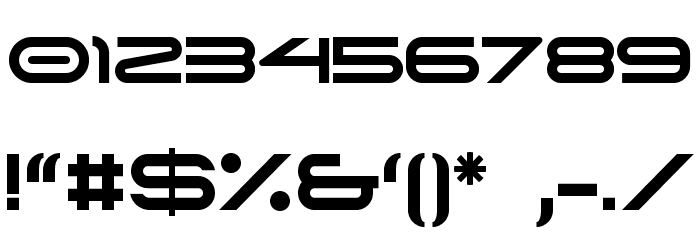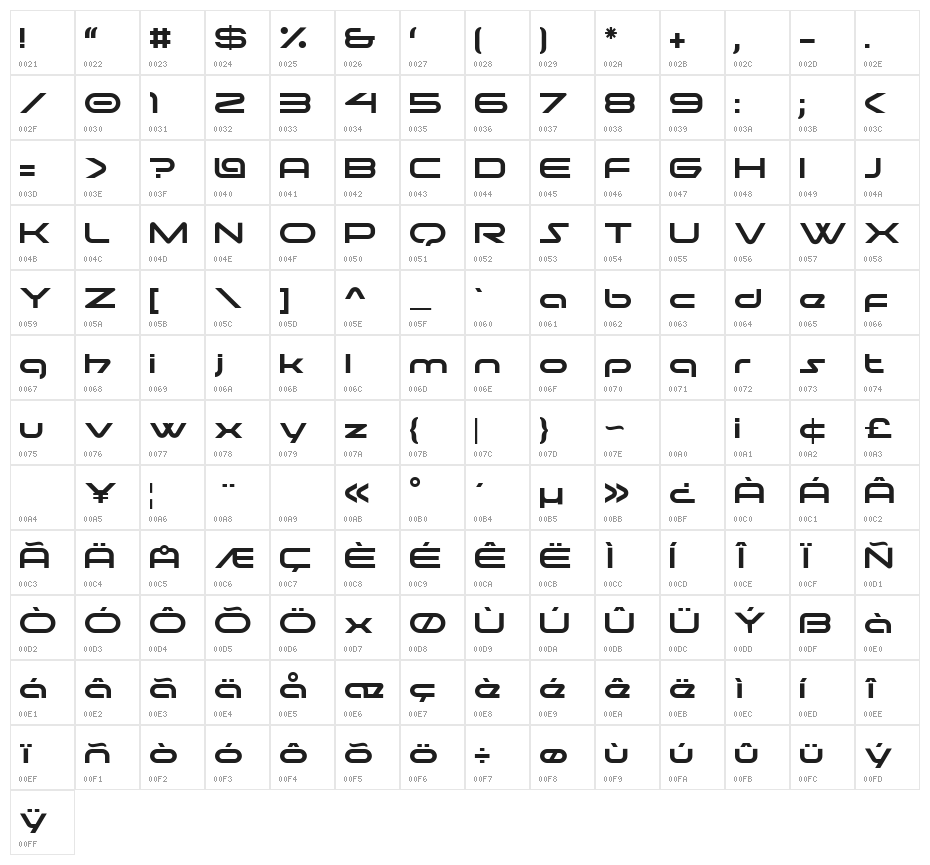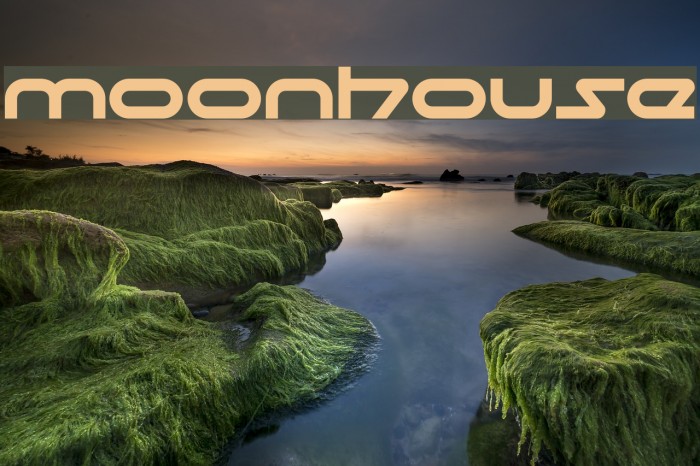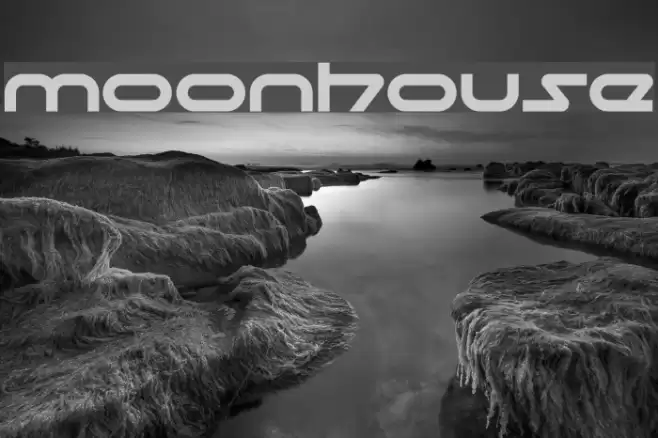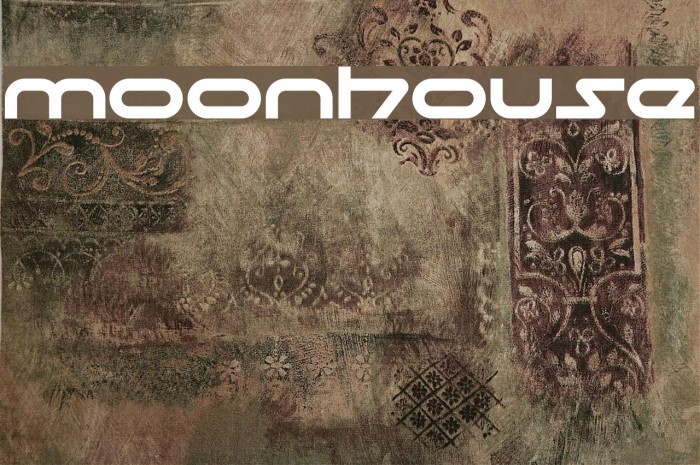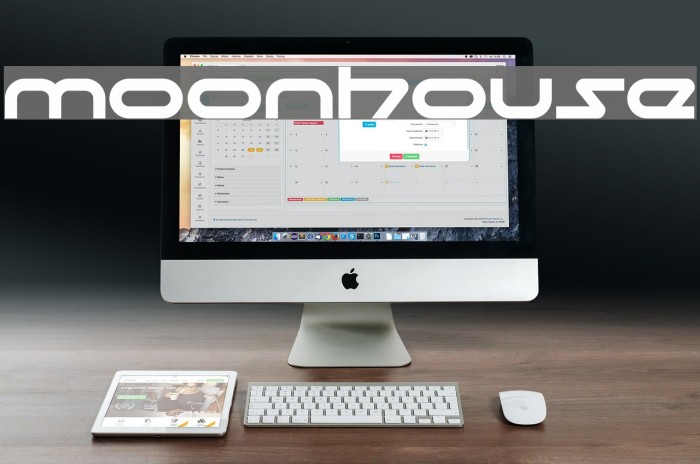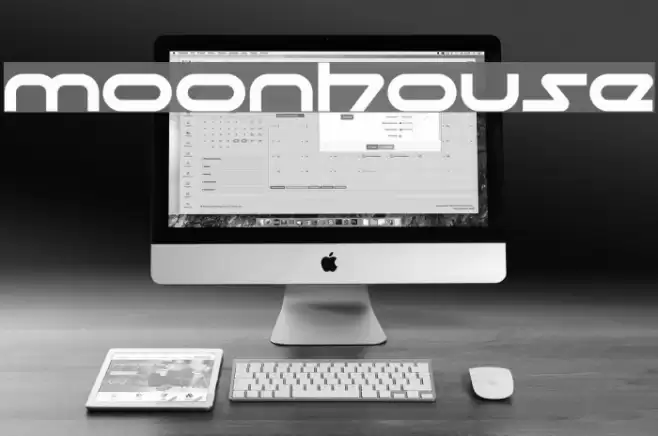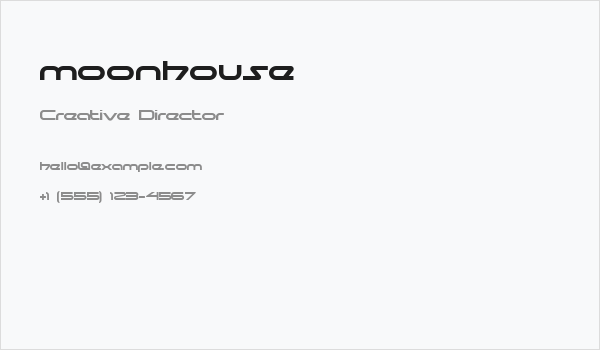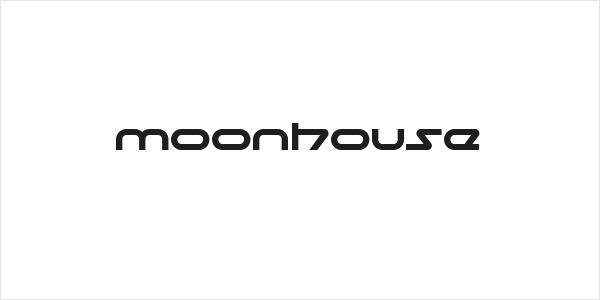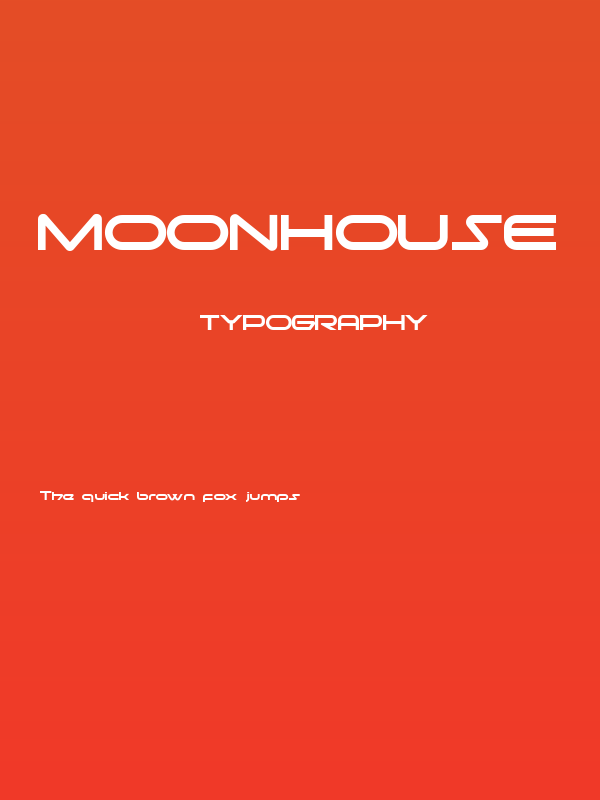
moonhouse Font
moonhouse Description
This font features a futuristic and geometric design, characterized by its bold and angular letterforms. The uppercase letters are distinct with sharp edges and a consistent stroke width, giving a modern and tech-inspired feel. The lowercase letters maintain the geometric style, offering a cohesive look across the typeface. Numbers and special characters follow the same design principles, ensuring uniformity. The font's clean lines and structured appearance make it suitable for projects that require a contemporary and innovative touch.
| Proposed Projects | Ideal for technology branding, sci-fi themed designs, video game interfaces, and modern advertising campaigns. |